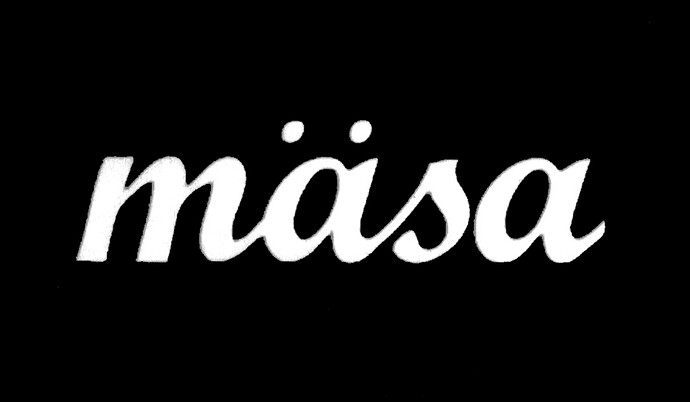
I’m brand new to Font Creator and have a question (I did spend awhile searching for my question first).
I have an image that I scanned and saved it as a 300 .dpi .jpeg and .bmp it is black and white, but had to take
it into photoshop first to clean it up a bit.
Is there a thread or maybe even a Tutorial somewhere where I can find step-by-step directions on how to bring
that image into Font Creator and then turn it into a working font?
I believe you have started correctly by having converted it to B&W and creating the image with as high a dpi rate as possible. Eventually you have to separate the letters so they can be imported into glyphs. If that step can be done before FC your results will improve.
There is a function to scan an image into FC (Tools/Import Image). The settings there help you to acquire the best image from your source. This works on each image, so can be varied as appropriate. Once “the best” settings are found, flagging “Use as default” will set them. I always test a conversion to confirm the current settings are going to work right.
You can “drag and drop” a whole alphabet into an empty font and FC will cycle from the first image to the last.
The attached is your original image, and the individual letters after I separated them and then reconstructed to your word. I used the knife tool on the initial b&w image to divide the letters.
Because your example is a connected script the links between letters will need extra work to make sure they match/overlap correctly. That’s the hard part of most script font creations.
If you need the black background and if the letters don’t have to be connected, each letter could have a black rectangle background. This is a standard solution. It becomes tricky with connected letters because you have to match and not overlap all connecting strokes. Here is an example where a black background has been applied to the 4 individual letters. In fact, it’s a composite where all 4 letters are on a single black background.